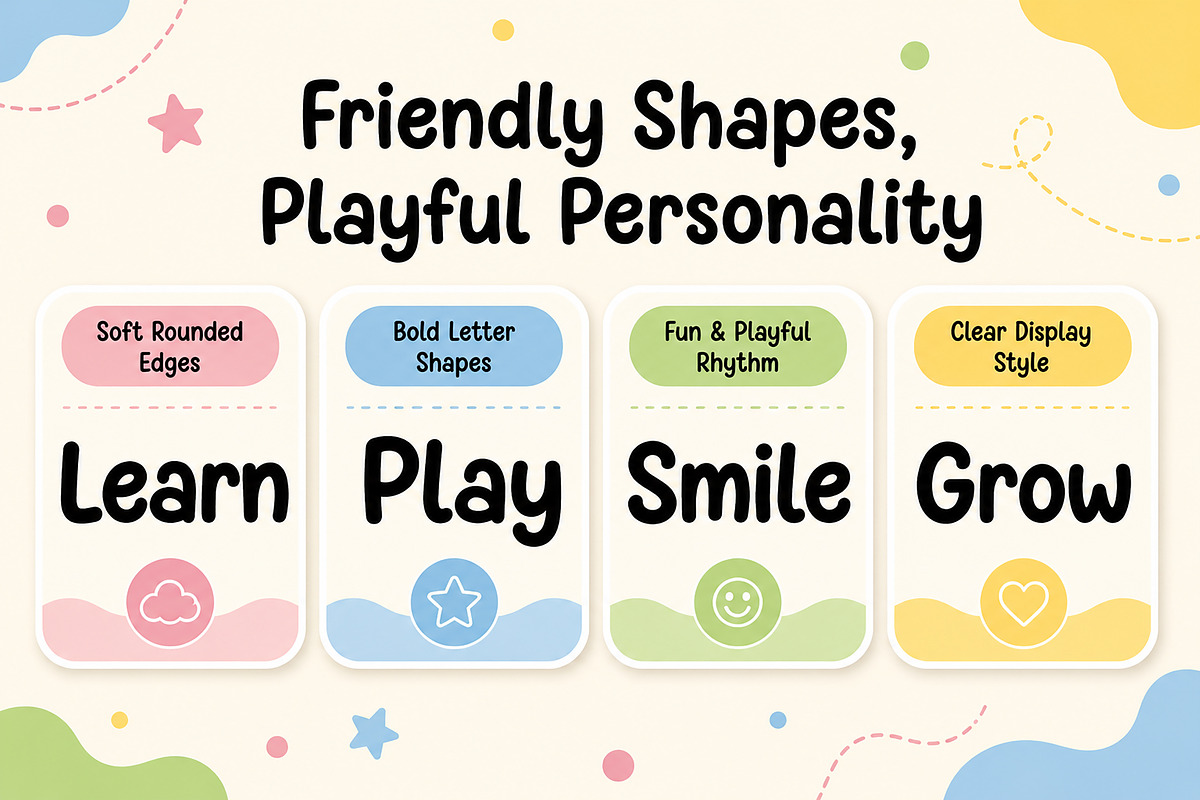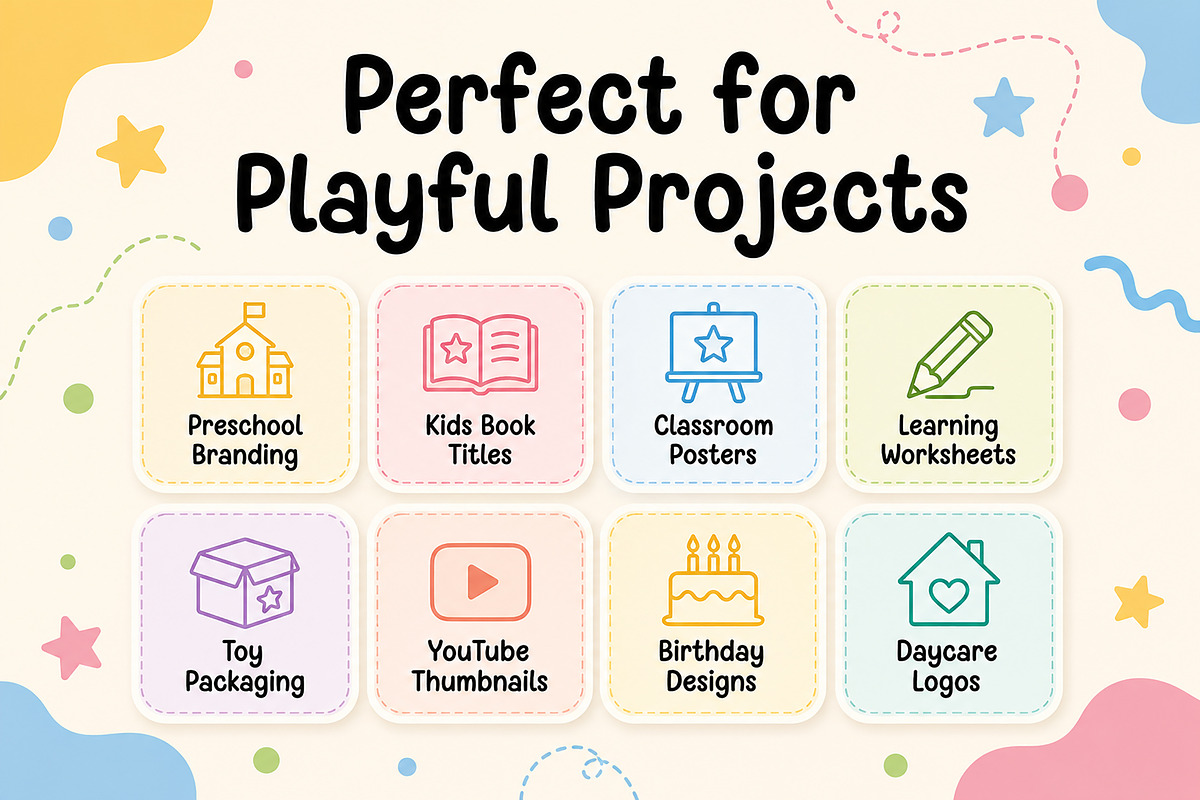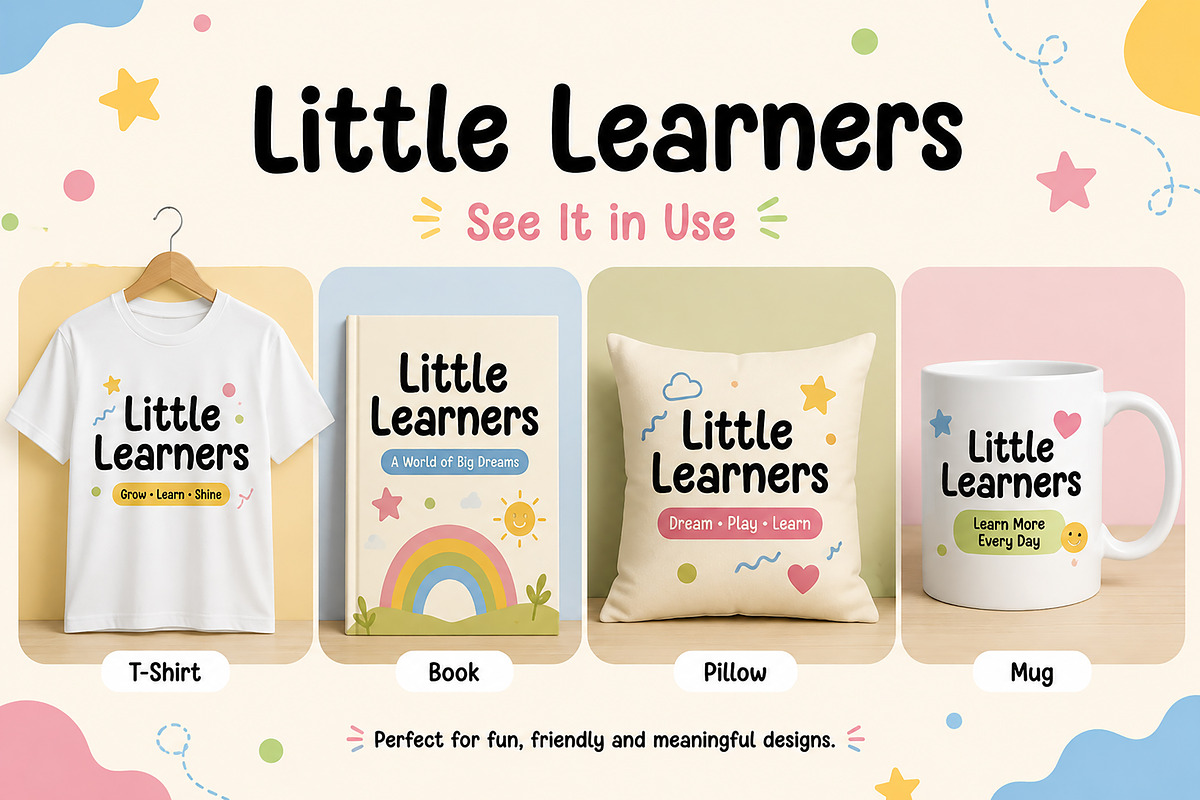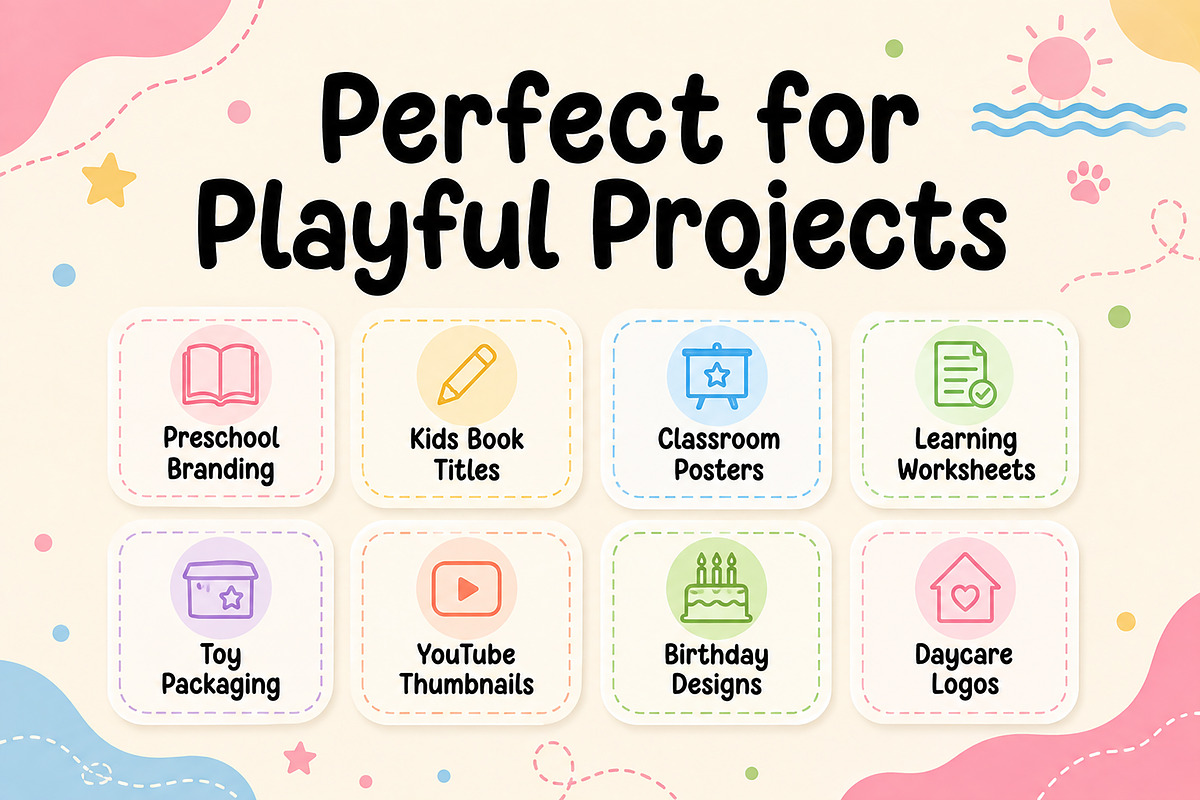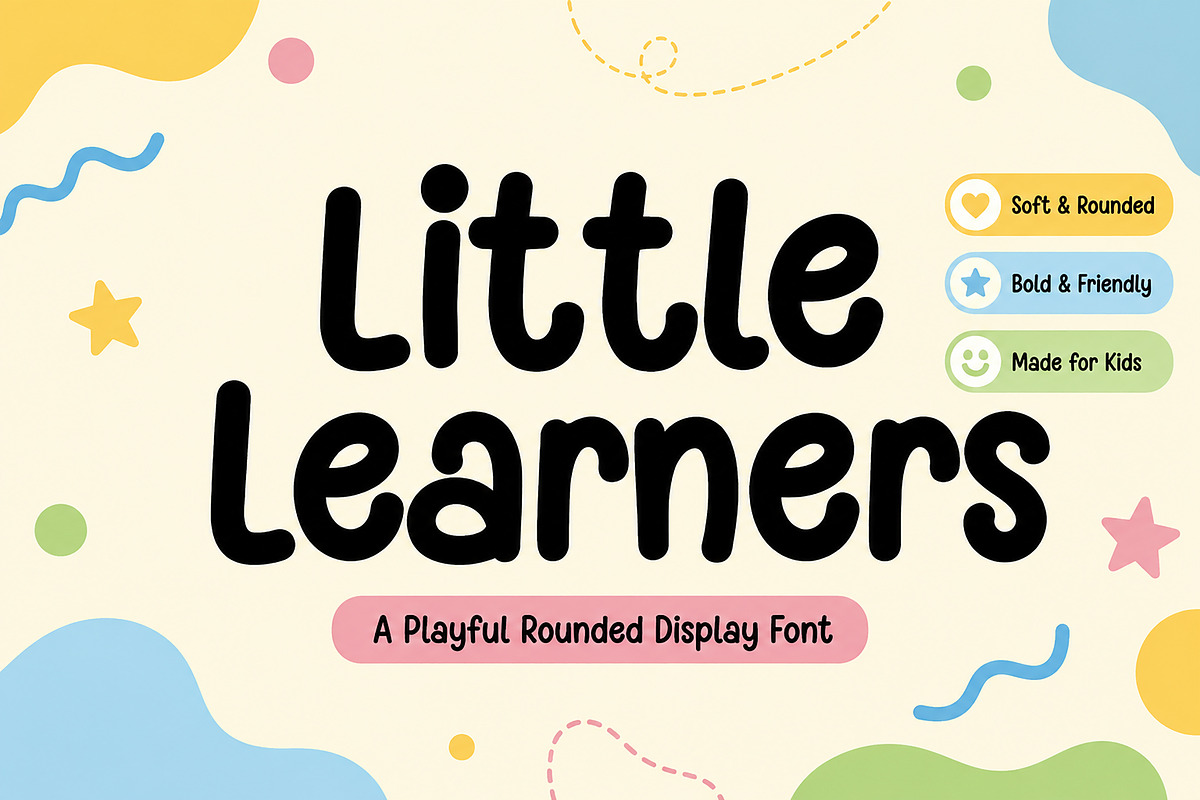
Little Learners
Little Learners – Playful Rounded Display Font
Product Description
Little Learners is a playful rounded display font designed to bring warmth, creativity, and joy to every project. With its soft curves, bold letterforms, and friendly personality, this font is perfect for designs that need a fun, approachable, and child-friendly look.
Whether you're creating educational materials, children's branding, packaging, or social media graphics, Little Learners helps your headlines stand out with a cheerful and memorable style.
Its clean, rounded shapes ensure excellent readability while adding a playful touch that both kids and parents will love.
Preschool Branding
Kids Book Covers & Titles
Classroom Posters
Learning Worksheets
Educational Printables
Toy Packaging
Children's Logos
Daycare Branding
Birthday Invitations
Party Decorations
YouTube Thumbnails
Stickers
Greeting Cards
T-Shirts
Mugs
Pillows
Tote Bags
Cricut & Silhouette Projects
Playful Rounded Display Style
Soft & Friendly Letterforms
Bold and Easy to Read
Clean & Modern Look
Perfect for Headlines & Titles
Great for Print & Digital Projects